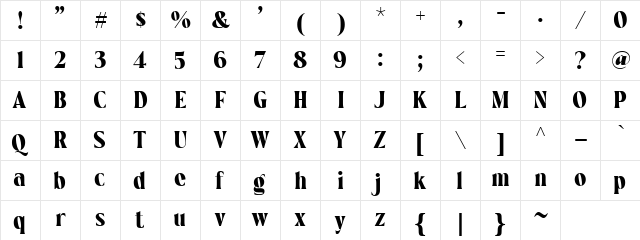
Regint Regular Font Preview
Regint Regular
Regint Regular Font Details
| Foundry | Runsell Studio |
| Designer | Edi Gunawan |
Design Context for Regint Typeface
Regint is a composed and adaptable typeface that performs quietly and consistently across a wide range of design contexts.